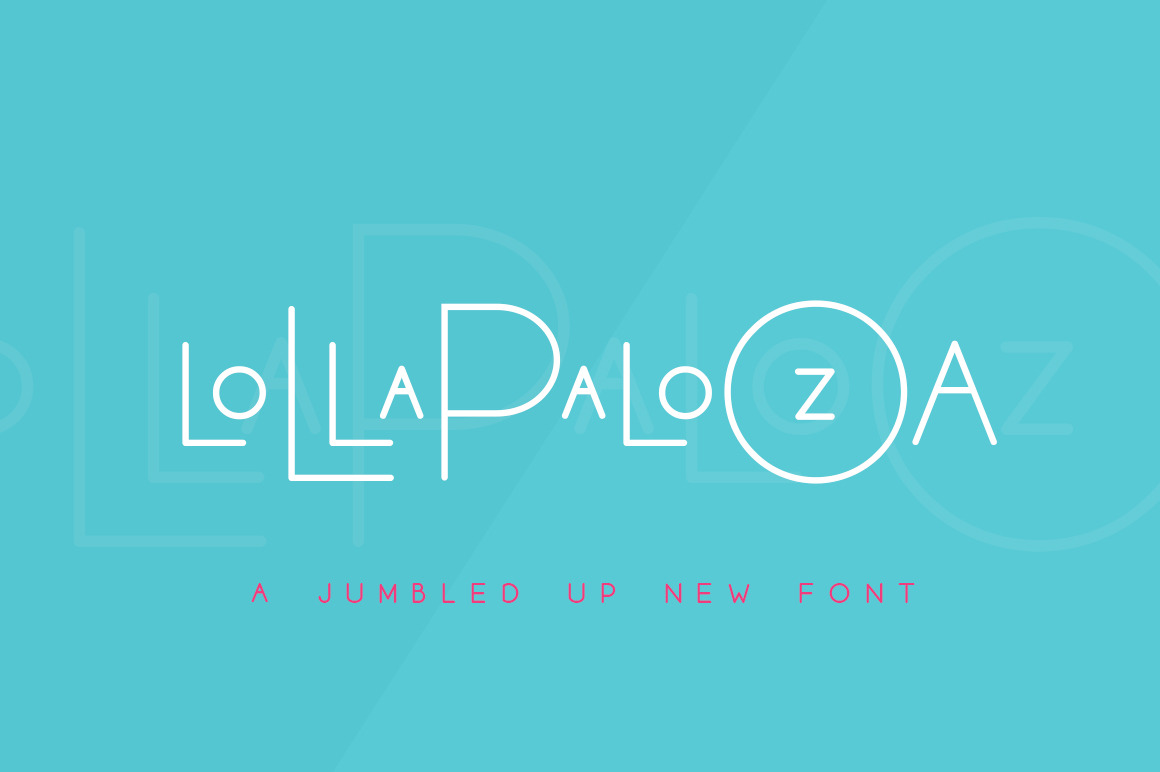
The Lollapalooza Font Trio
Lollapalooza is here! But it’s not a festival in Chicago, it’s a wonderful new font! In fact, it’s a font trio and you can combine the small, medium and large versions together to create a unique and quirky new style!